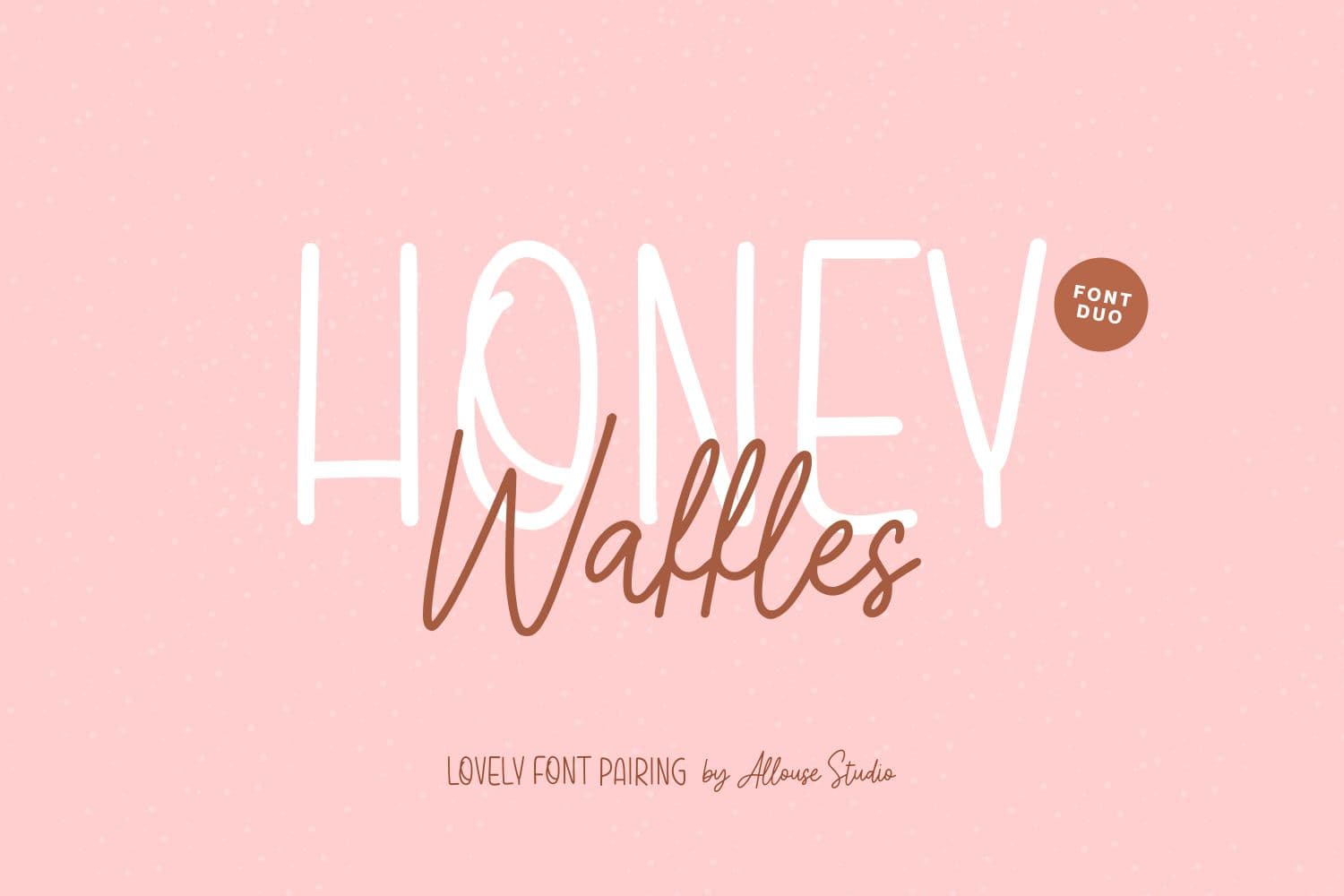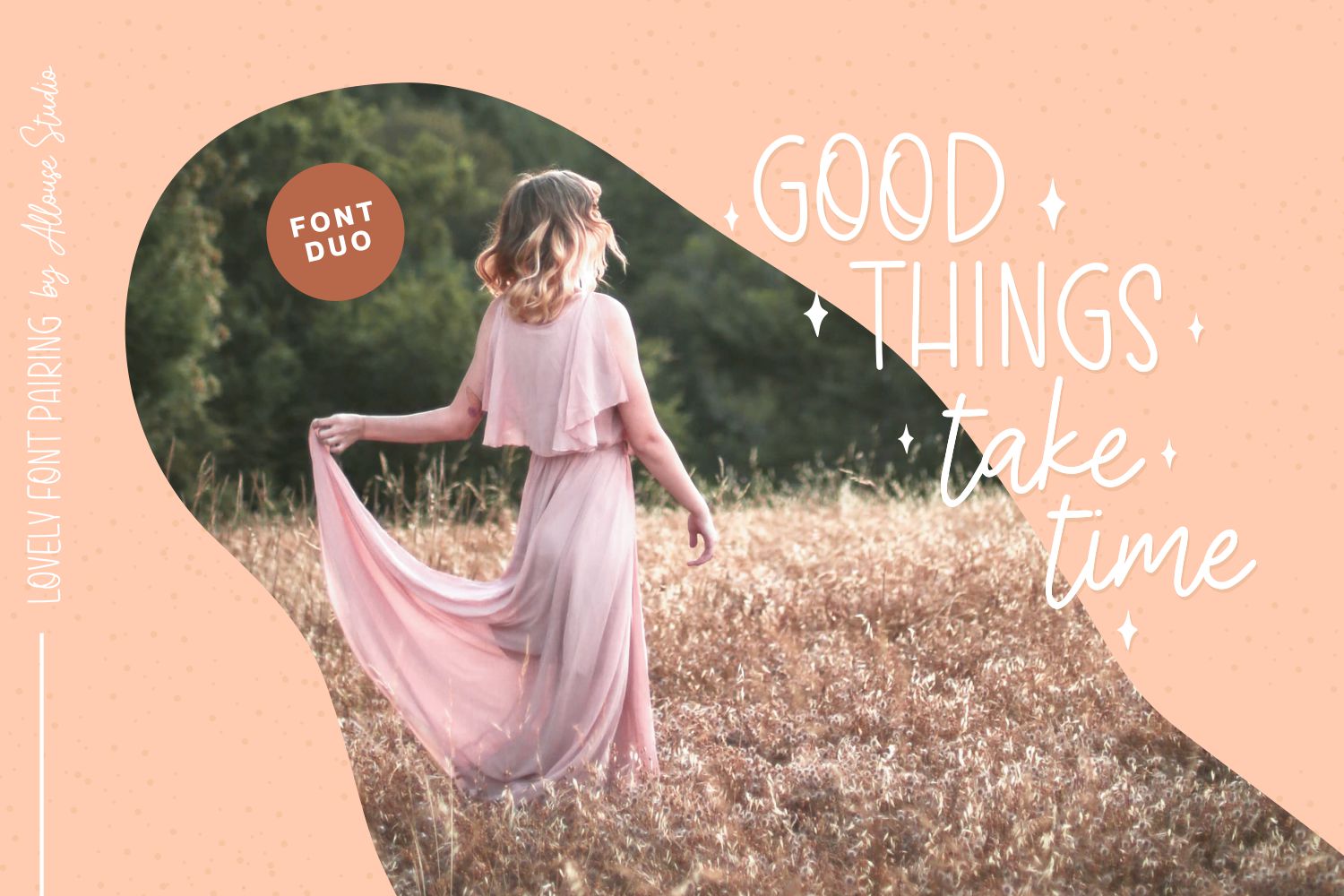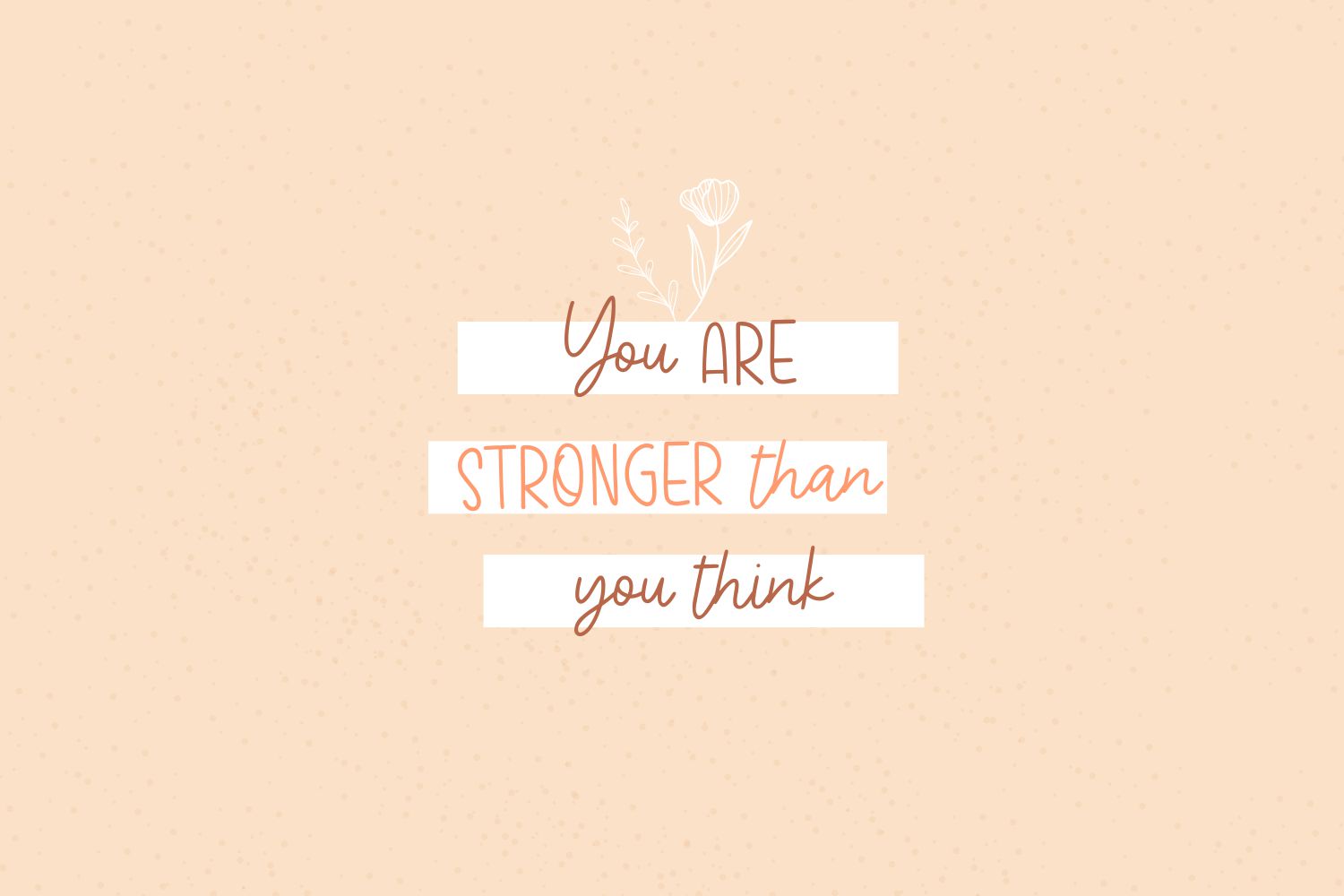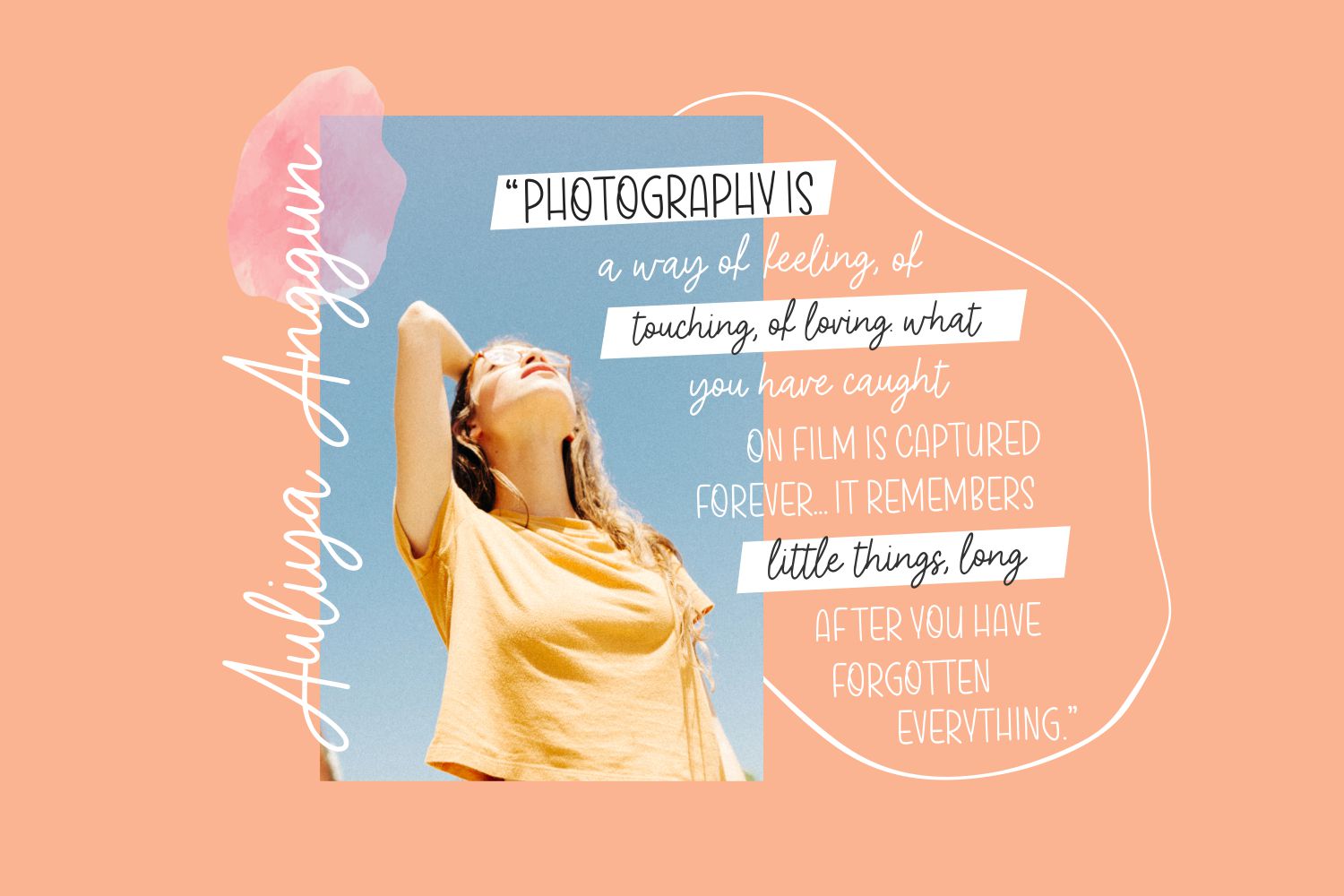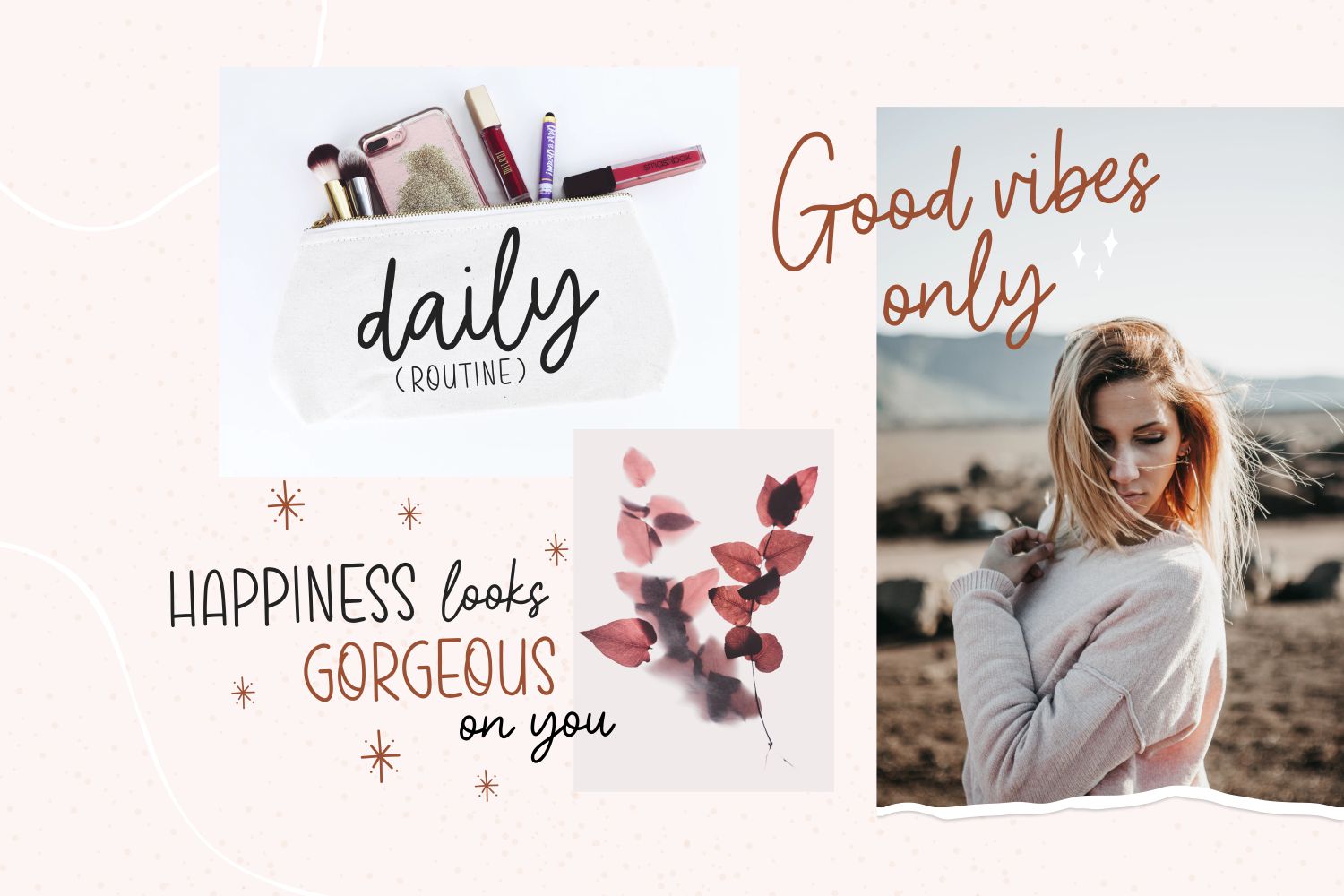
Honey Waffles Font
Honey Waffles Script Font
This is a simple and versatile duo font (sans serif and script). These fonts work great together as well as separately, so add them confidently to your fonts’ library and fall in love with the results.